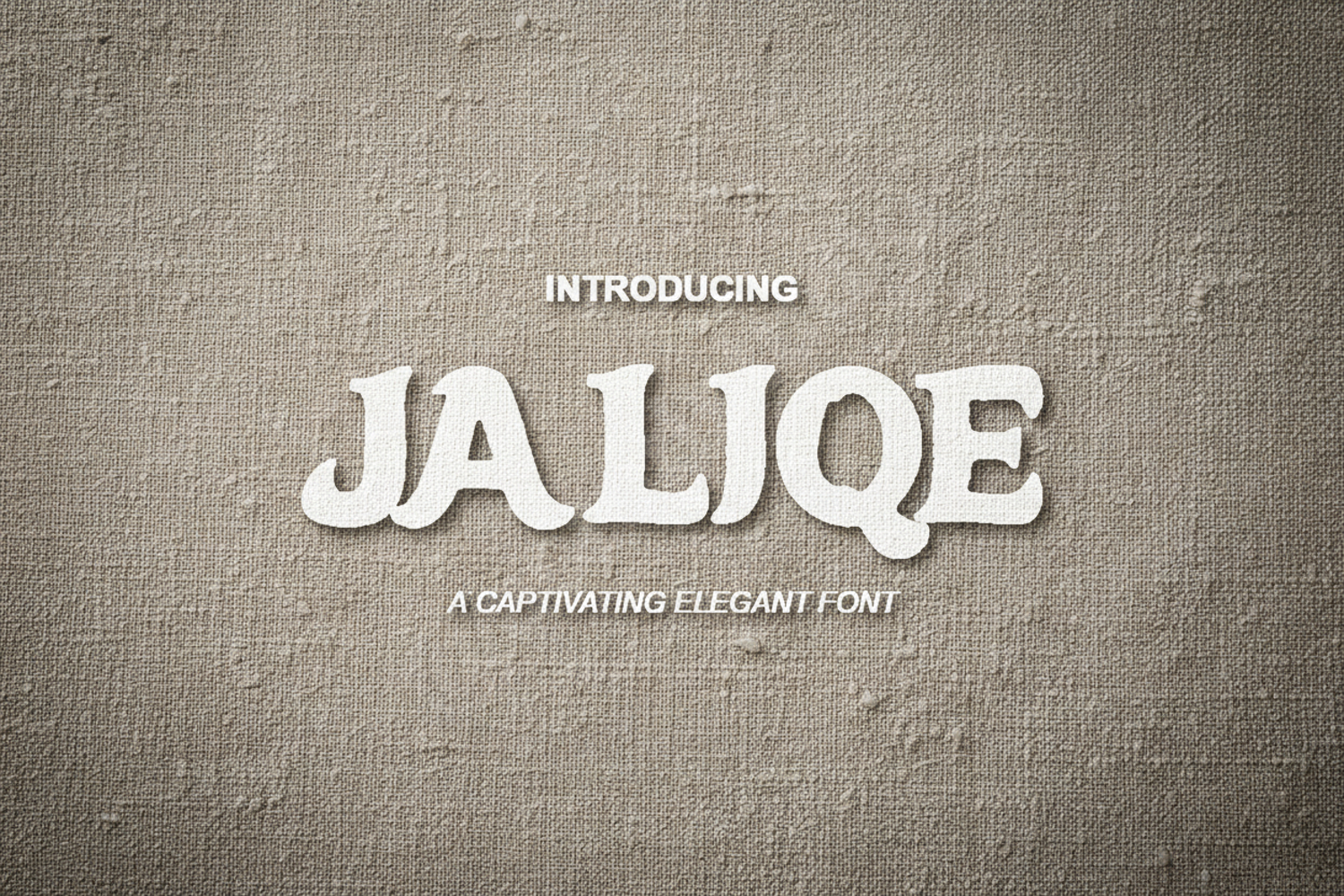
Jaliqe - Sophisticated Modern Serif
Jaliqe
Elevate your creative projects with Jaliqe, a premium serif typeface that seamlessly blends classic elegance with contemporary flair. Meticulously crafted for designers who demand excellence, Jaliqe features refined strokes and unique character sets that ensure your typography stands out with professional polish and timeless appeal.
- Comprehensive Multilingual Support
- Elegant Ligatures and Stylistic Alternates
- Luxury Branding and Visual Identity
- High-End Editorial and Magazine Layouts
- Sophisticated Wedding Stationery and Invitations
- Professional Logo Design and Wordmarks
- Premium Product Packaging and Labels
- Stylish Social Media Content and Quotes